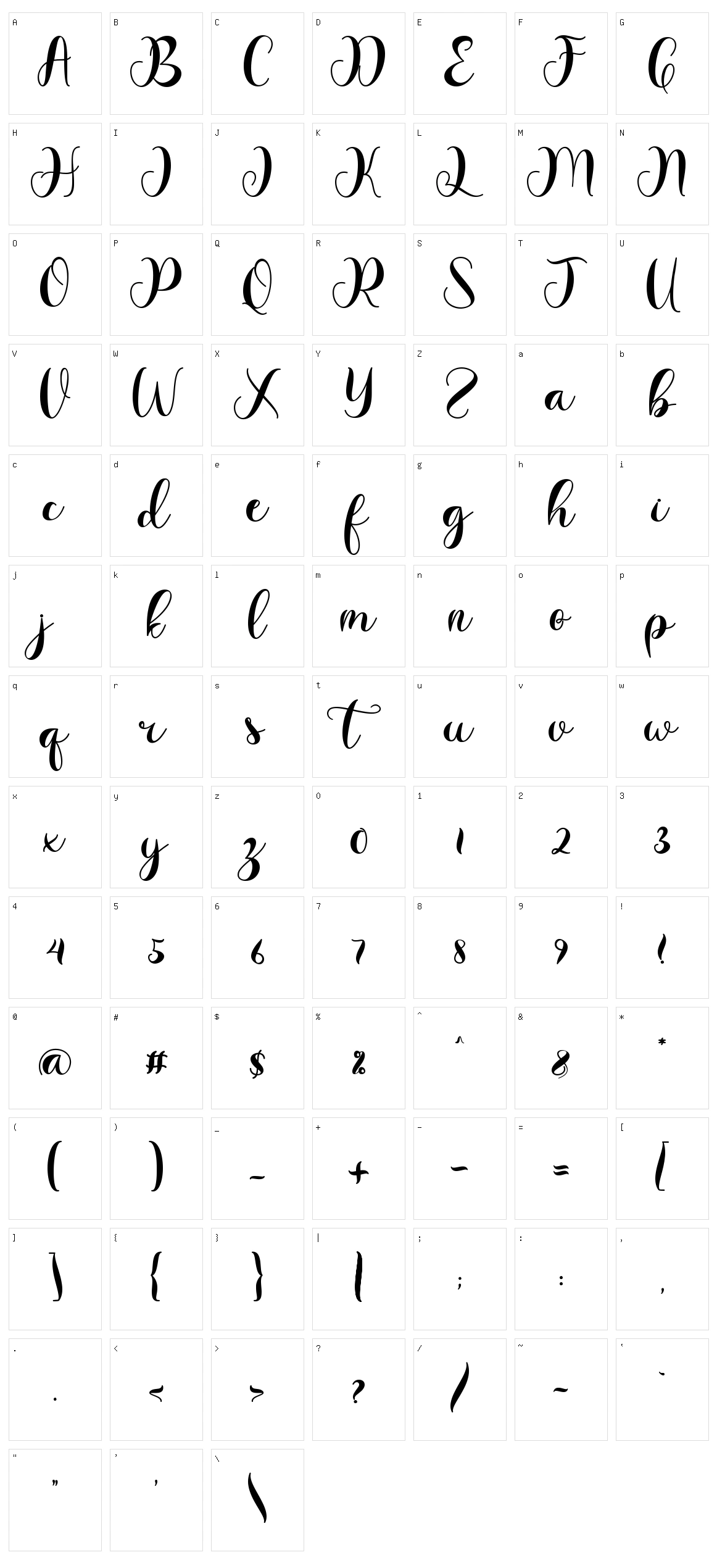
The free font Vacation Monogram is carefully designed by Selvia Design, showcasing a thoughtful balance of creativity and usability and falls under the Script font style. When you download the ZIP file, it contains only 34.63 KB of font files, making it lightweight and quick to download. Please review the license details below to understand permitted usage and distribution rights. If license information is not available, we recommend using this font for personal projects only or contacting the author directly for commercial usage permissions.